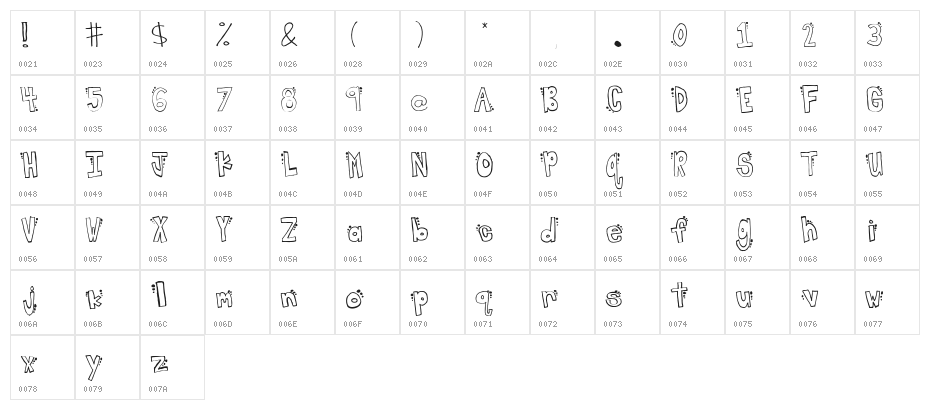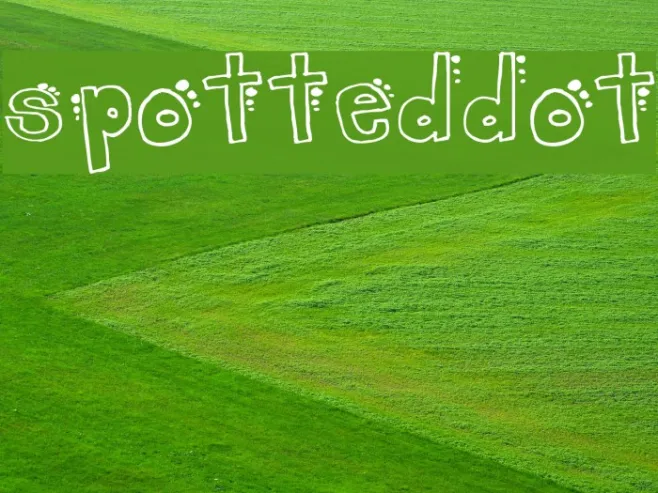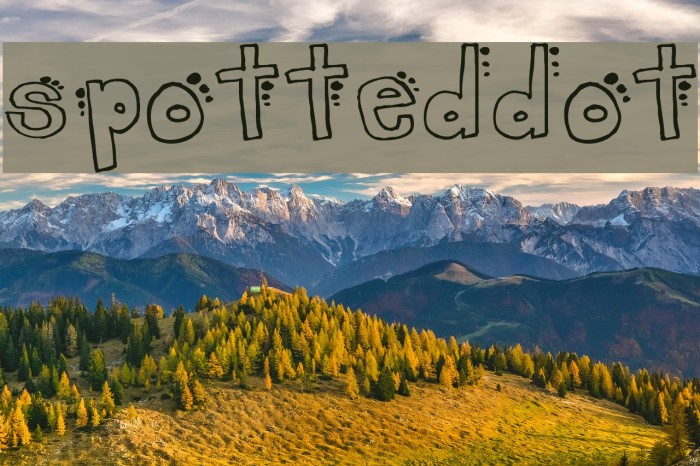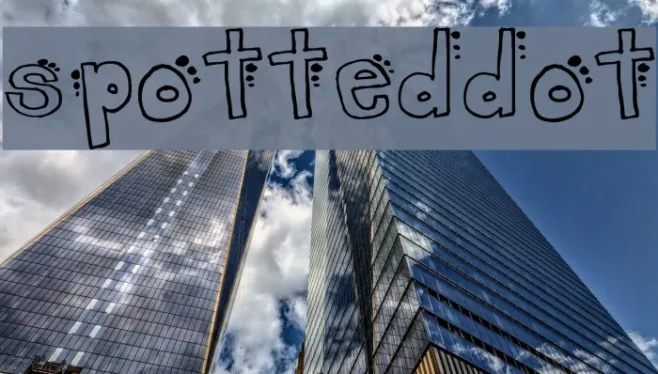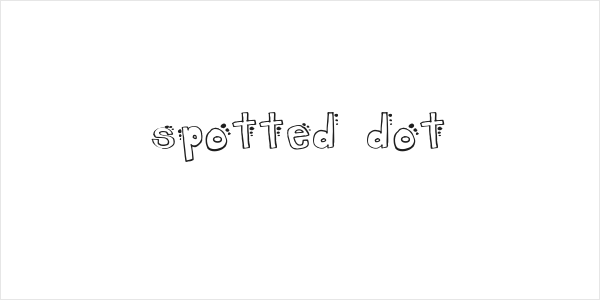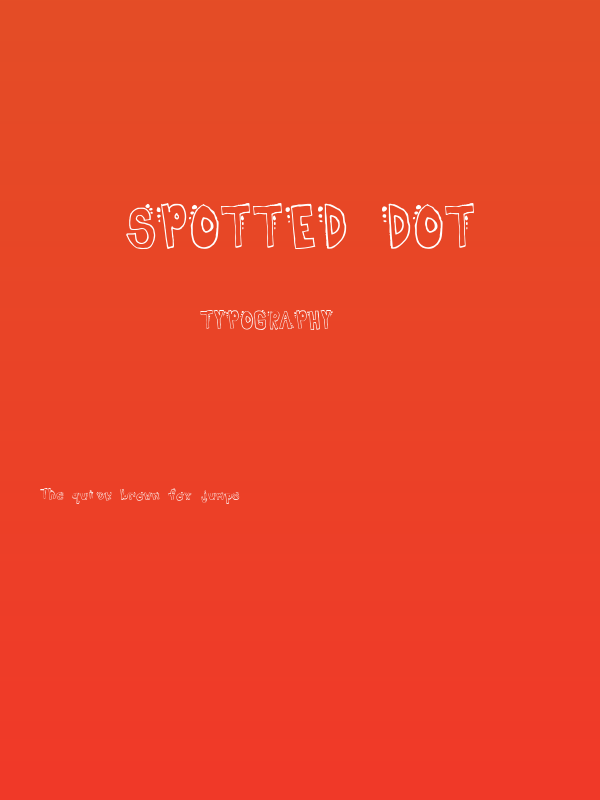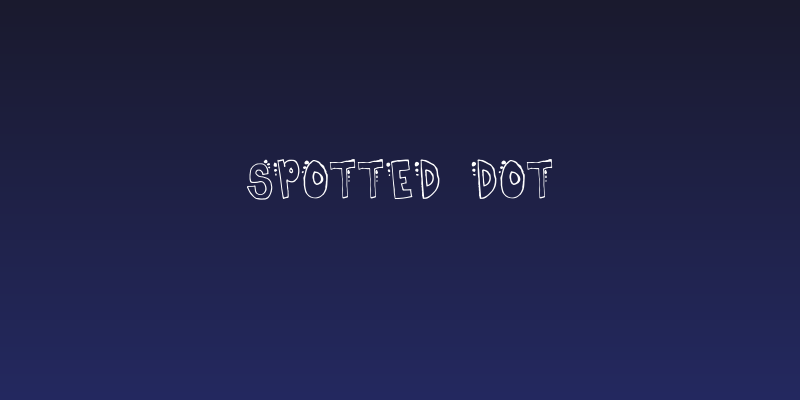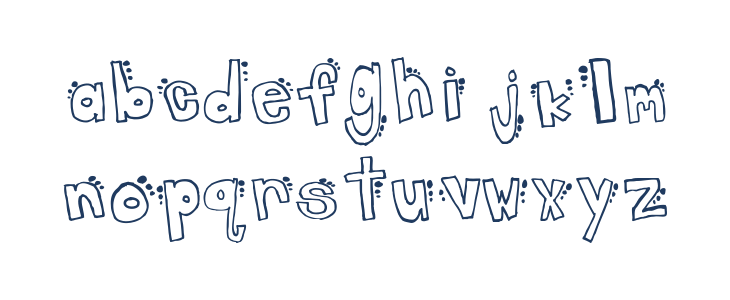
spotted dot Font
spotted dot Description
This playful and whimsical font features a unique dotted pattern along the edges of each character, giving it a lively and fun appearance. The letters are bold and slightly irregular, adding to the hand-drawn, casual style. The uppercase and lowercase letters maintain a consistent design, with rounded edges and a friendly, approachable feel. Numbers and special characters are included, each adorned with the same dotted embellishments, ensuring a cohesive look across all text. This font is perfect for projects that require a touch of creativity and playfulness, making it ideal for children's materials, party invitations, or any design that seeks to convey a sense of joy and spontaneity.
| Overall Style | Whimsical, Playful |
| Proposed Projects | Ideal for children's books, party invitations, playful branding, and creative posters. |